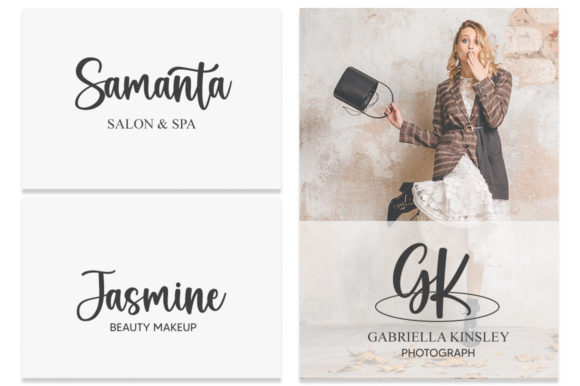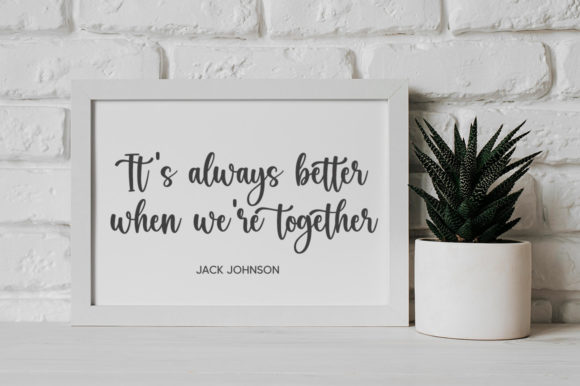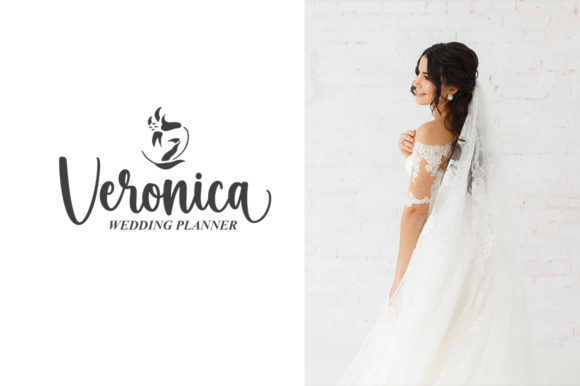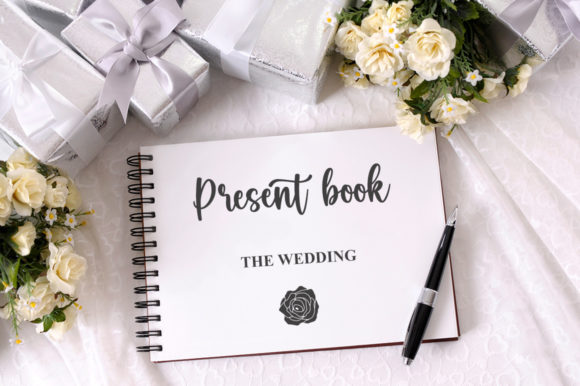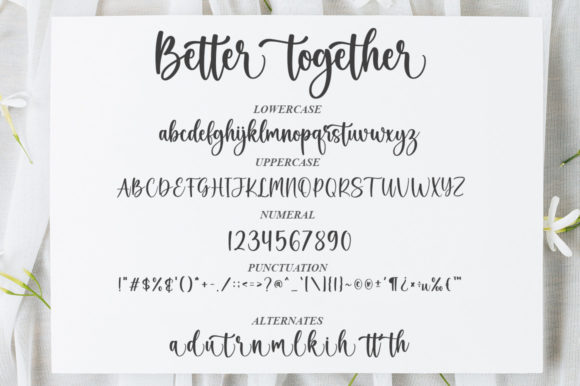
Unlock the Magic of Handwritten Charm
Have you ever been in the midst of a design project, and the perfect font suddenly sparks an idea that takes your creation to the next level? For many designers, that ‘aha’ moment is what makes all the hard work worth it. And today, we’re excited to share with you a font that’s sure to ignite that creative spark: the Better Together Font.
| 👤 Author | Graphix Line Studio |
This lovely, timeless handwritten font is a game-changer for logo design, branding, and quotes. Every letter has a unique and beautiful touch, which brings your design to life. Whether you’re a seasoned designer or just starting out, the Better Together Font is a valuable addition to your toolkit. Its versatility and charm make it the perfect choice for a wide range of projects, from elegant invitations to fun, casual designs.
Better Together Font Key Features
- Font Family: Better Together Font is a custom-designed font family that includes 4 styles: Regular, Italic, Bold, and Bold Italic.
- Unique Characteristics: The Better Together Font features a unique, rounded design that is friendly and approachable, making it suitable for a wide range of applications, including branding, advertising, and editorial content.
- Font Metrics: The font has been carefully designed to provide clear, readable text at various font sizes, with a x-height of 0.75 and a font width of 1.00.
Better Together Font Review
Overall, I think the Better Together Font is a solid choice for designers looking for a modern and friendly font. Here’s what I like about it:
- ✨ Friendly and approachable feel, making it perfect for social media, blog posts, and other informal content.
- ✨ Highly legible, even at smaller font sizes, which is a must-have for any font.
- ✨ Supports a wide range of languages, including many non-Latin scripts.
- ⚠️ The font may not be suitable for formal or professional applications, as it can come across as too casual.
- ⚠️ The font family is relatively small, with only a few weights and styles available.
- ⚠️ The font may not be as versatile as some other fonts on the market, limiting its potential uses.
Overall, I think the Better Together Font is a great choice for designers who want a friendly and approachable font for informal content. While it may not be suitable for every project, it’s definitely worth considering for the right application.
The Better Together font is ideal for creating a warm and inviting tone in your designs. Use it for:
– Social media posts and graphics
– Flyers and brochures
– Logos and branding materials
– Website headers and footers
To get the most out of the Better Together font, try combining it with other fonts for a unique look. Experiment with different font sizes and styles to create visual interest. Additionally, use the font in conjunction with bold colors and textures to add depth and dimension to your designs.